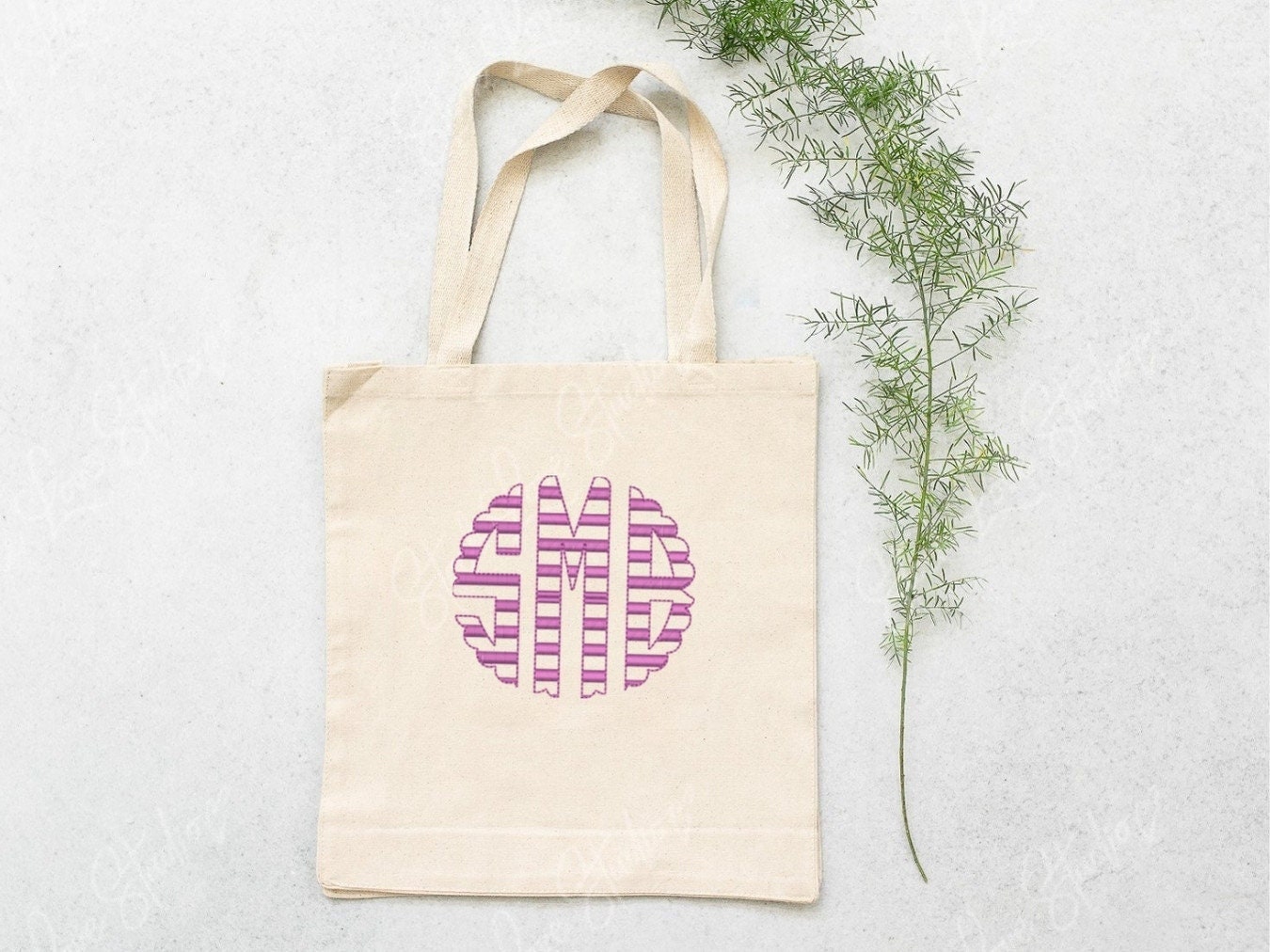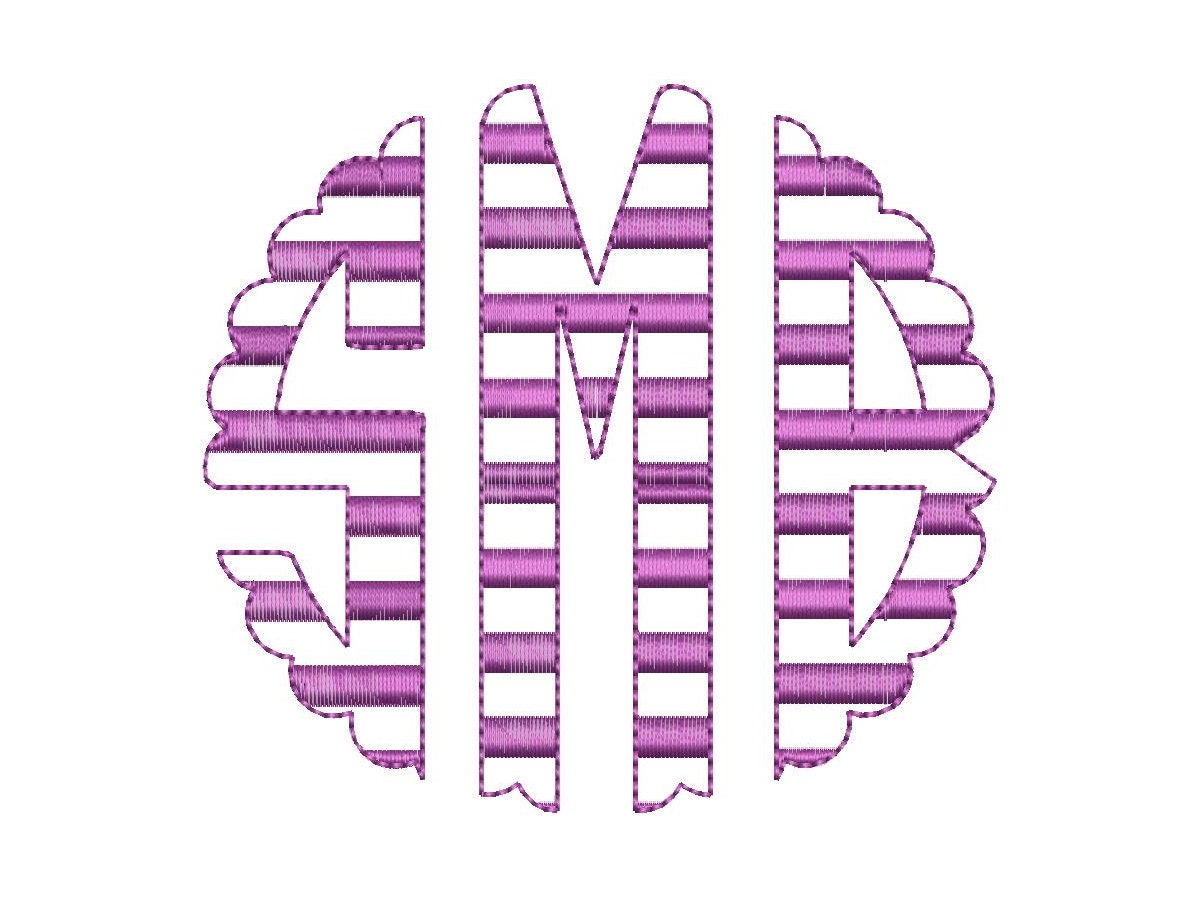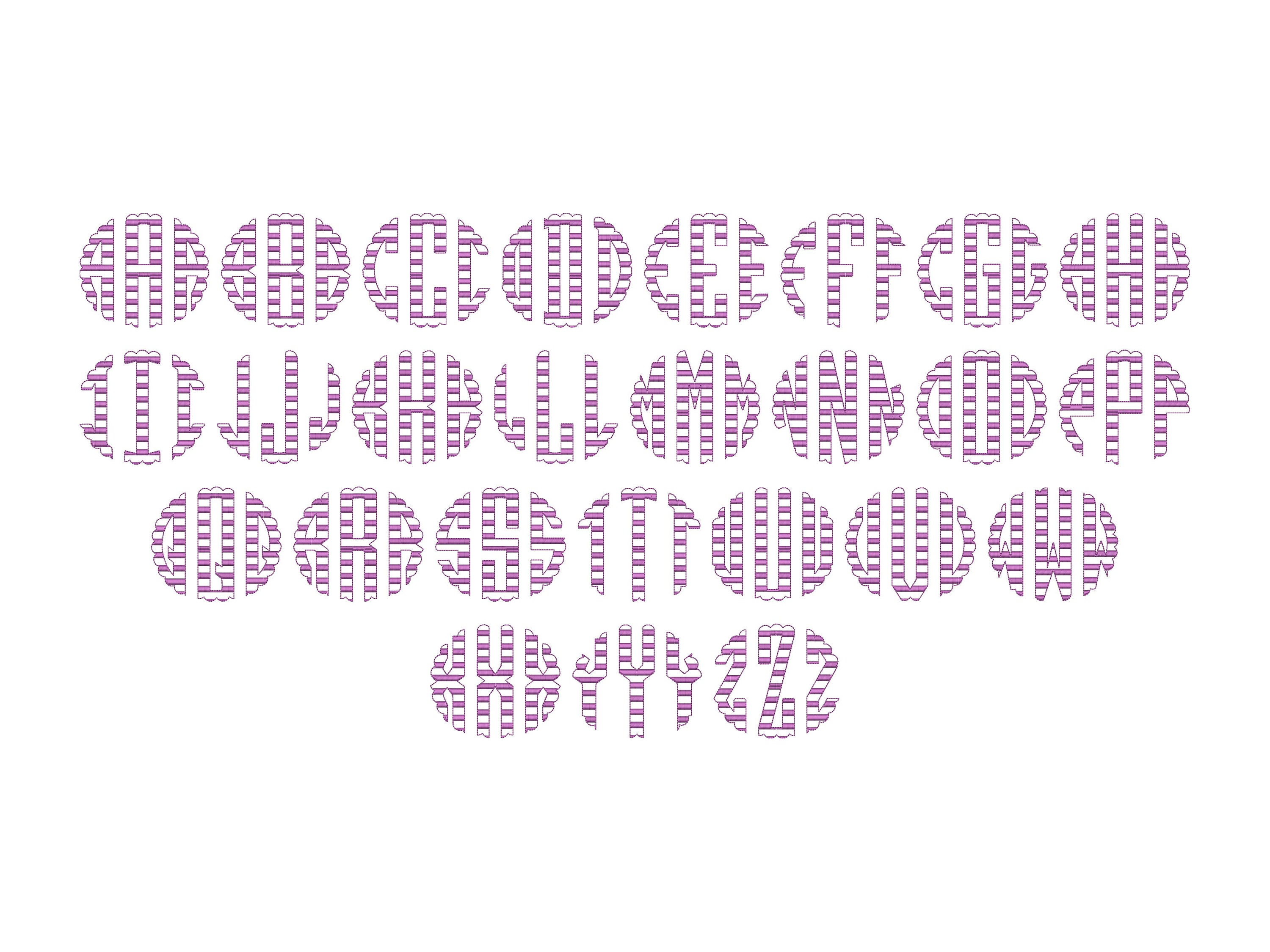
Scalloped Circle Monogram Striped FONT machine embroidery designs, classic three letter round monogram letters in many sizes, BX included
The stripes are part of the design.